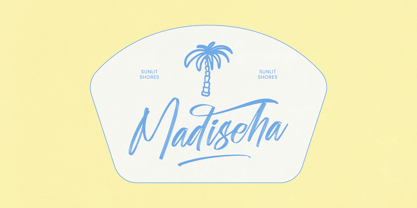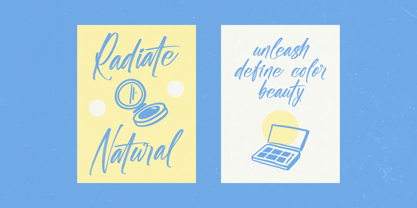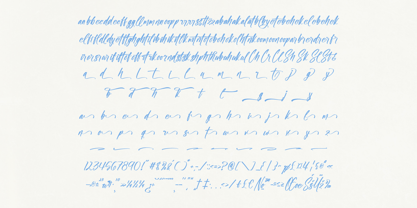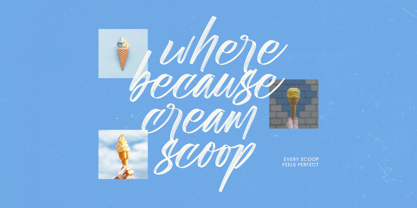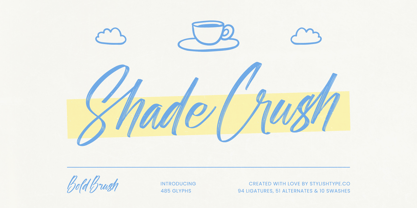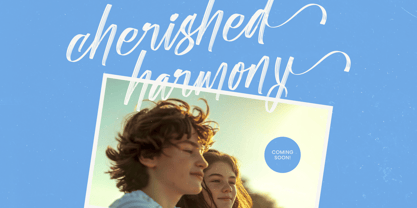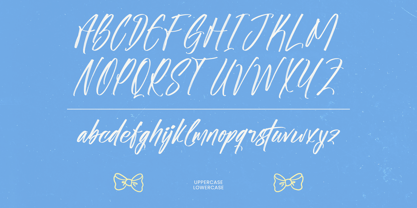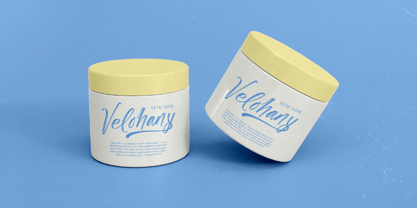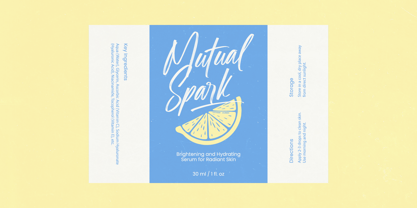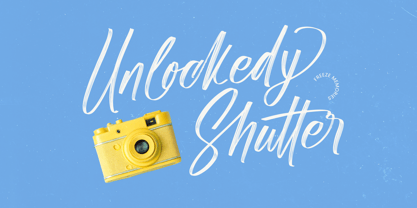
Shade Crush
by Stylishtype Studio
The Shade Crush Font Family was designed by Heru Utama Putra and published by Stylishtype Studio. Shade Crush contains 2 styles and family package options.
Shade Crush - Bold Brush Font , from Stylishtype , Suitable for any projects such as: logos, branding projects, homeware designs, product packaging, mugs, quotes, posters, shopping bags, t-shirts, book covers, name card, invitation cards, greeting cards, label, photography, watermark, special events, and all your other luxury and beautiful projects that need a Luxury Script taste.